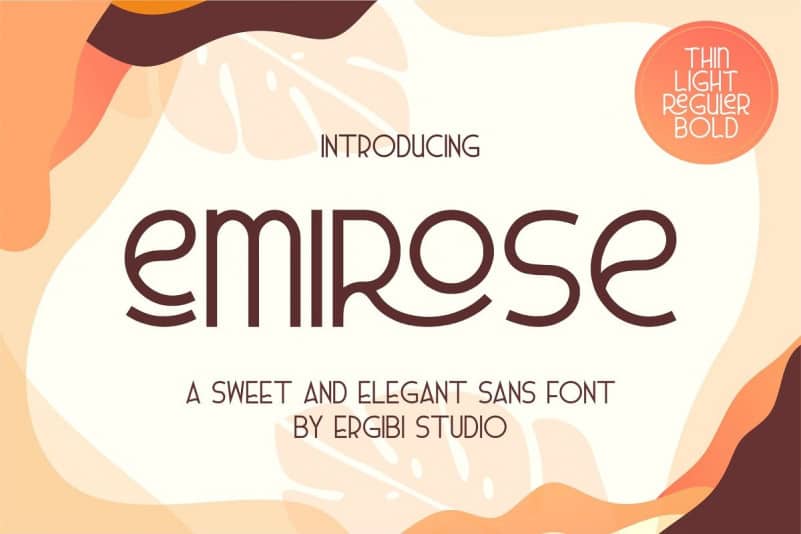
Emirose Sans Serif Font
Introducing Emirose Sans, Sweet & Elegant Fonts with many ligature styles.
Emirose Sans consists of 4 weights: Thin, light, and bold equipped with alternative letters that look cute and classy very well for your work such as logos, brands, packaging, posters, invitations, headlines, posters, and many others to create designs that more unique and versatile far wider.